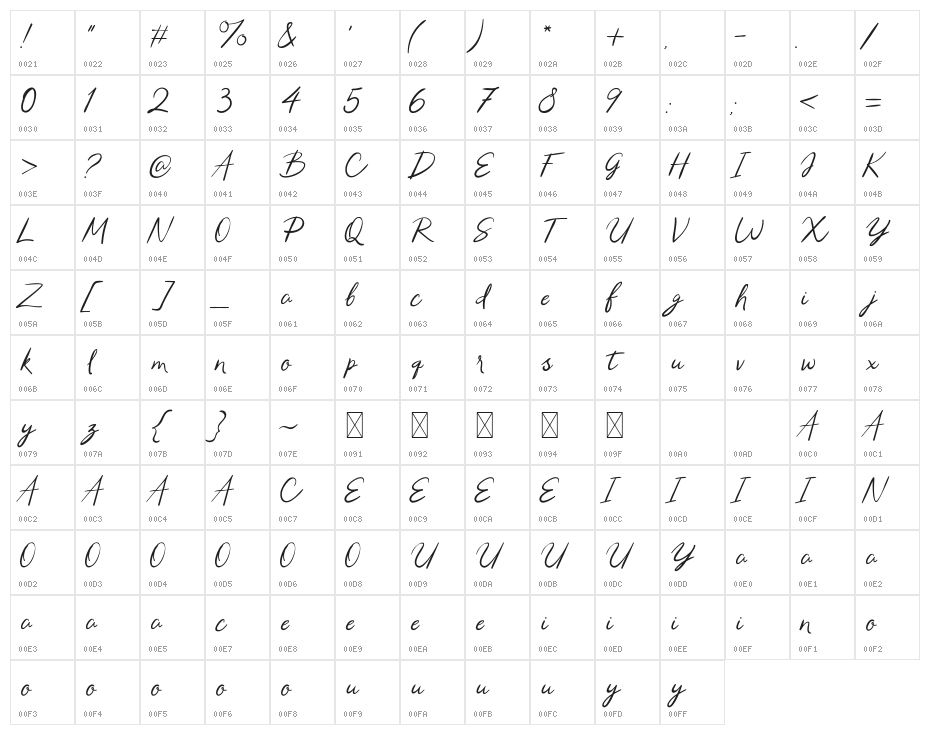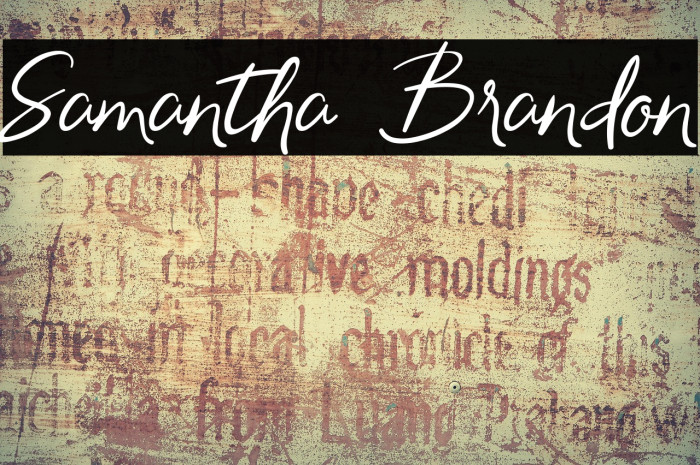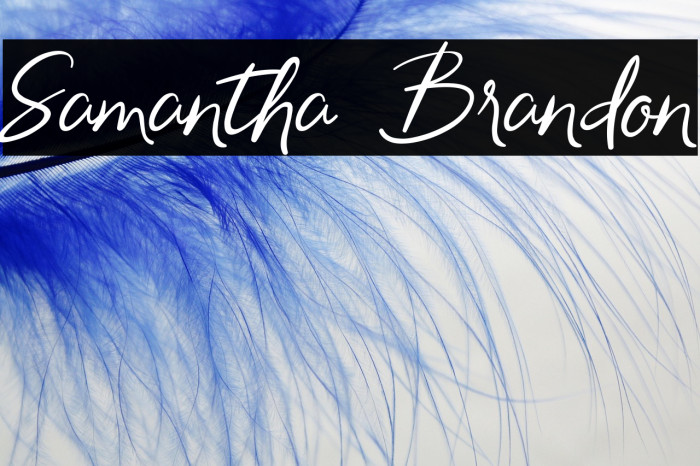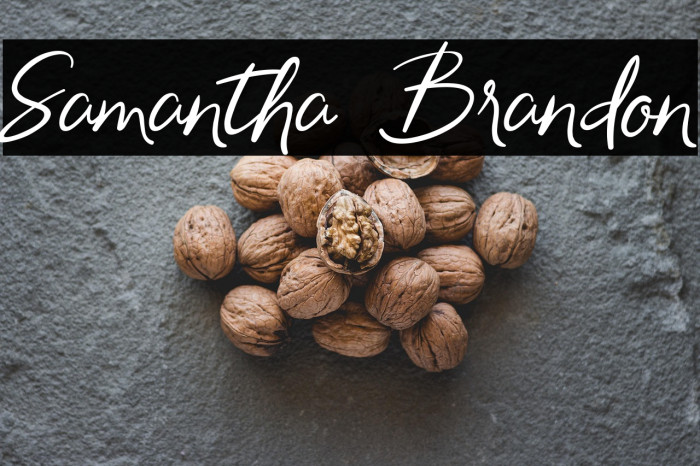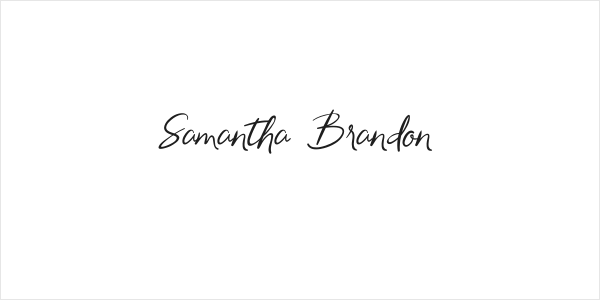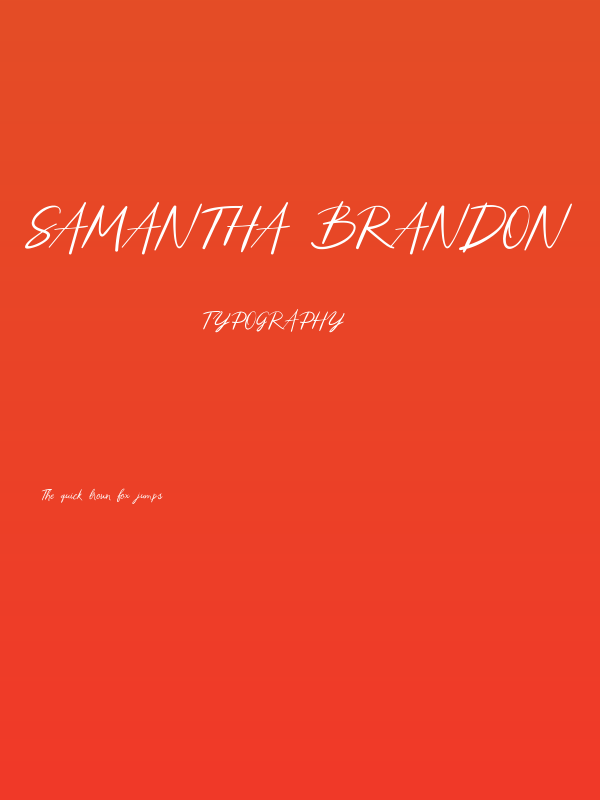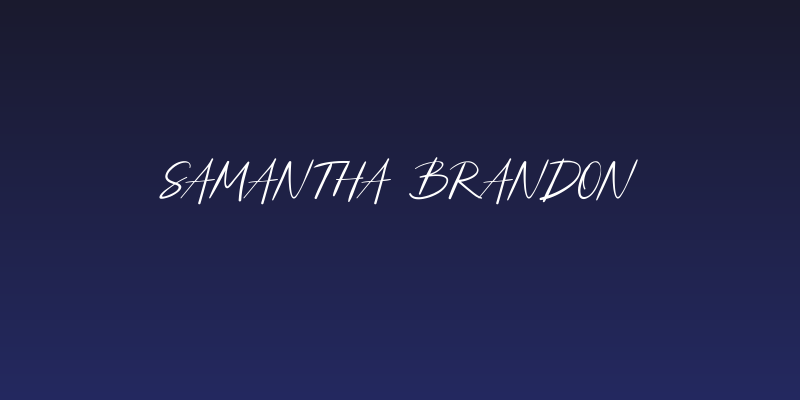
Samantha Brandon Font
Samantha Brandon Description
This font exudes a sense of elegance and fluidity, characterized by its cursive, handwritten style. The letters are connected in a smooth, flowing manner, with a slight slant that adds to its graceful appearance. The uppercase letters are bold and prominent, while the lowercase letters are more delicate, maintaining a consistent stroke width throughout. The numerals and special characters are designed to match the overall aesthetic, ensuring a cohesive look. This font is ideal for projects that require a personal touch, such as invitations, greeting cards, or branding materials.
| Overall Style | Elegant, Handwritten |
| Proposed Projects | Perfect for wedding invitations, personal branding, greeting cards, and elegant stationery. |